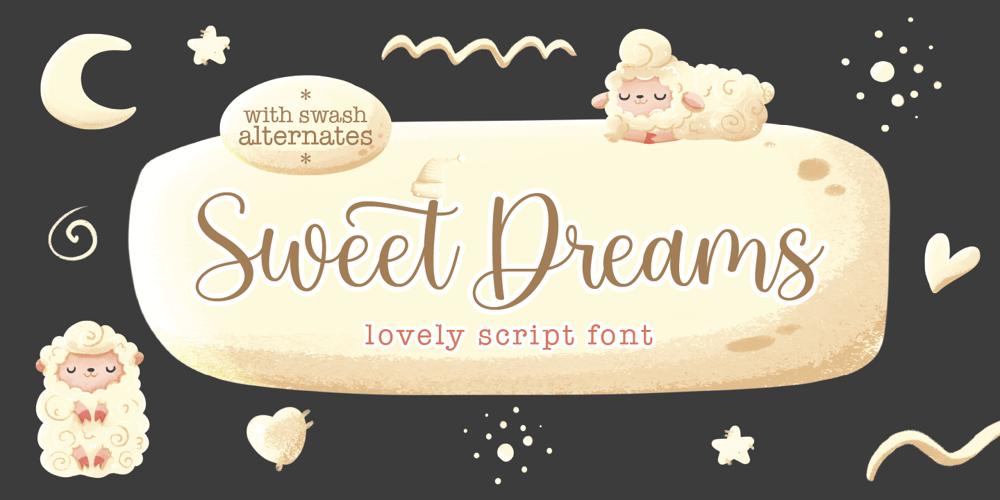
Sweet Dreams Font Family was designed by Fajar Gunawan and published by Fargun Studio. Sweet Dreams contains 1 styles and family package options. Sweet Dreams! A new fresh ans modern hand lettered font with decorative characters and a dancing baseline. So beautiful on invitation like handicraft, greeting cards, branding materials, business cards, quotes, posters, and more design concepts.Features : Unique ligatures Stylistic sets Basic Latin A-Z and a-z Numbers International Symbols included Punctuation Please send a message if you have questions or problems, and don’t hesitate to say hello on Instagram https://www.instagram.com/fargunstudioThank you.